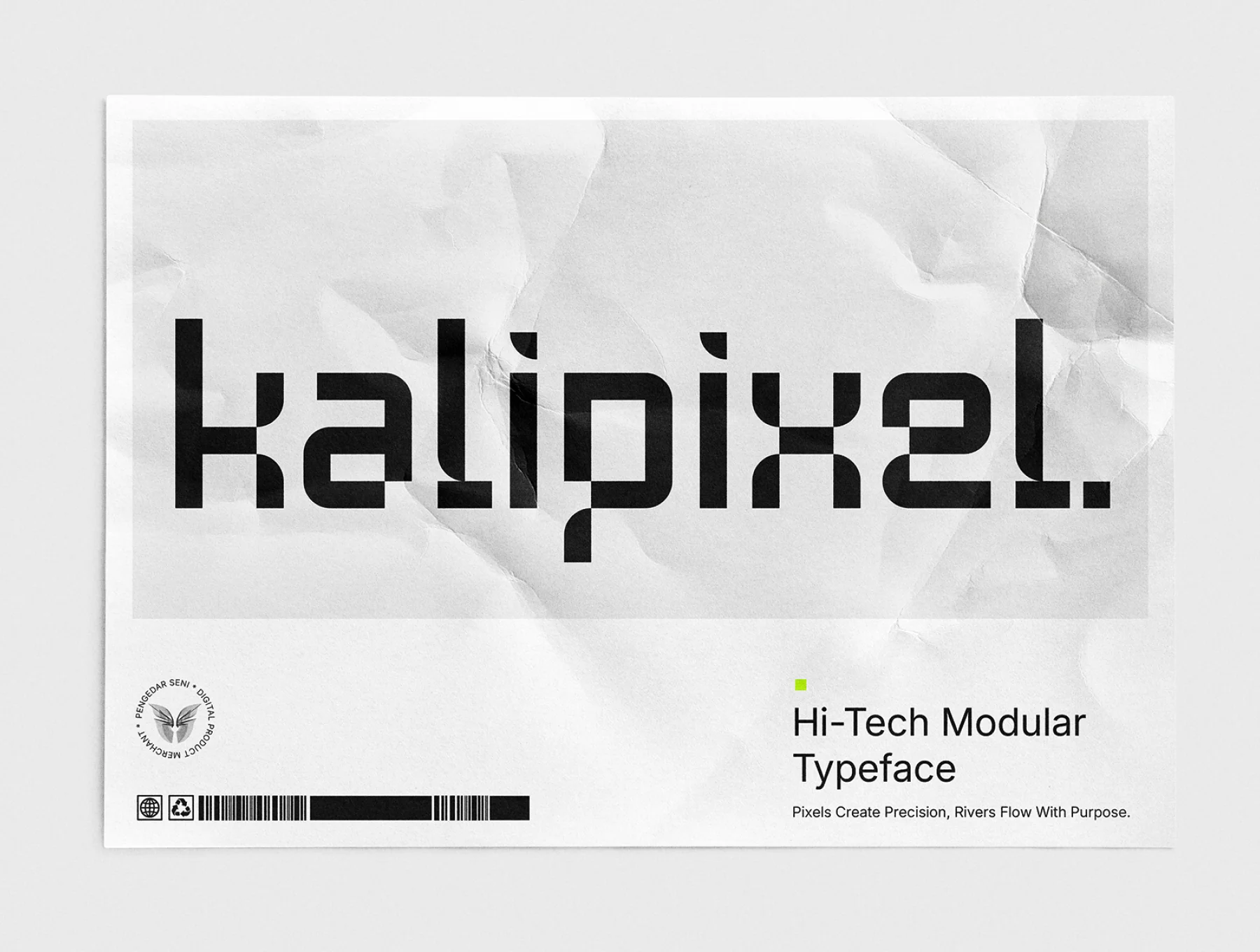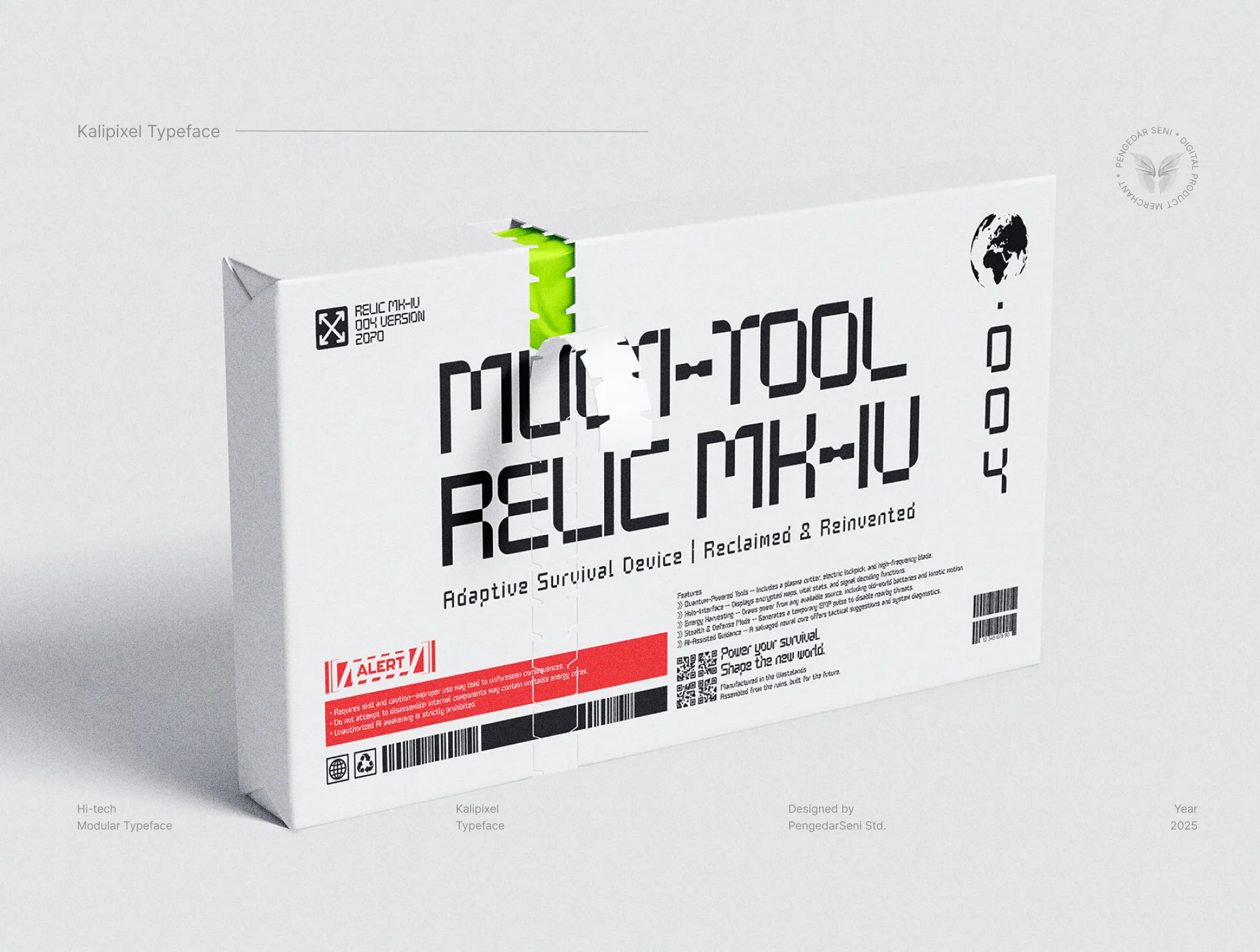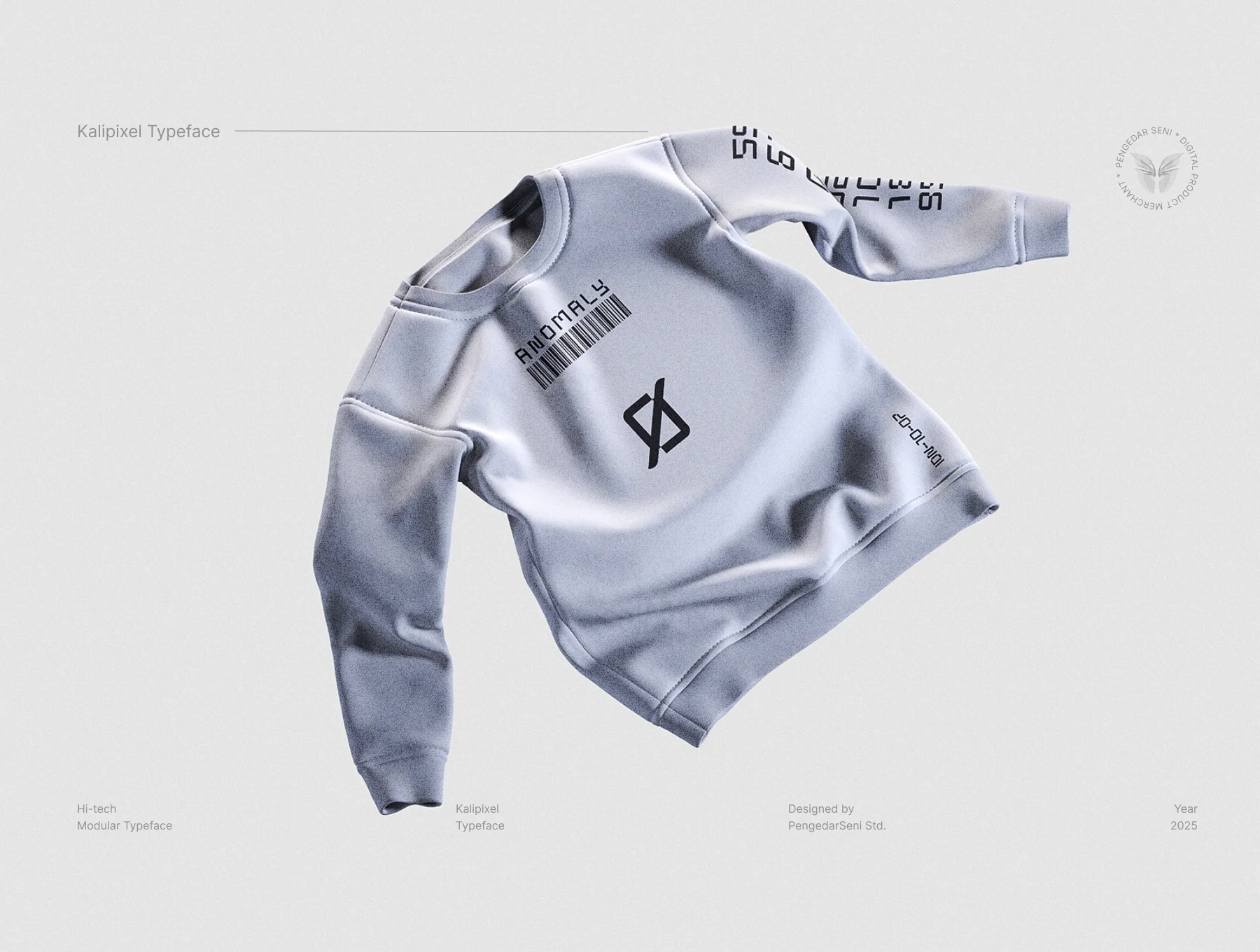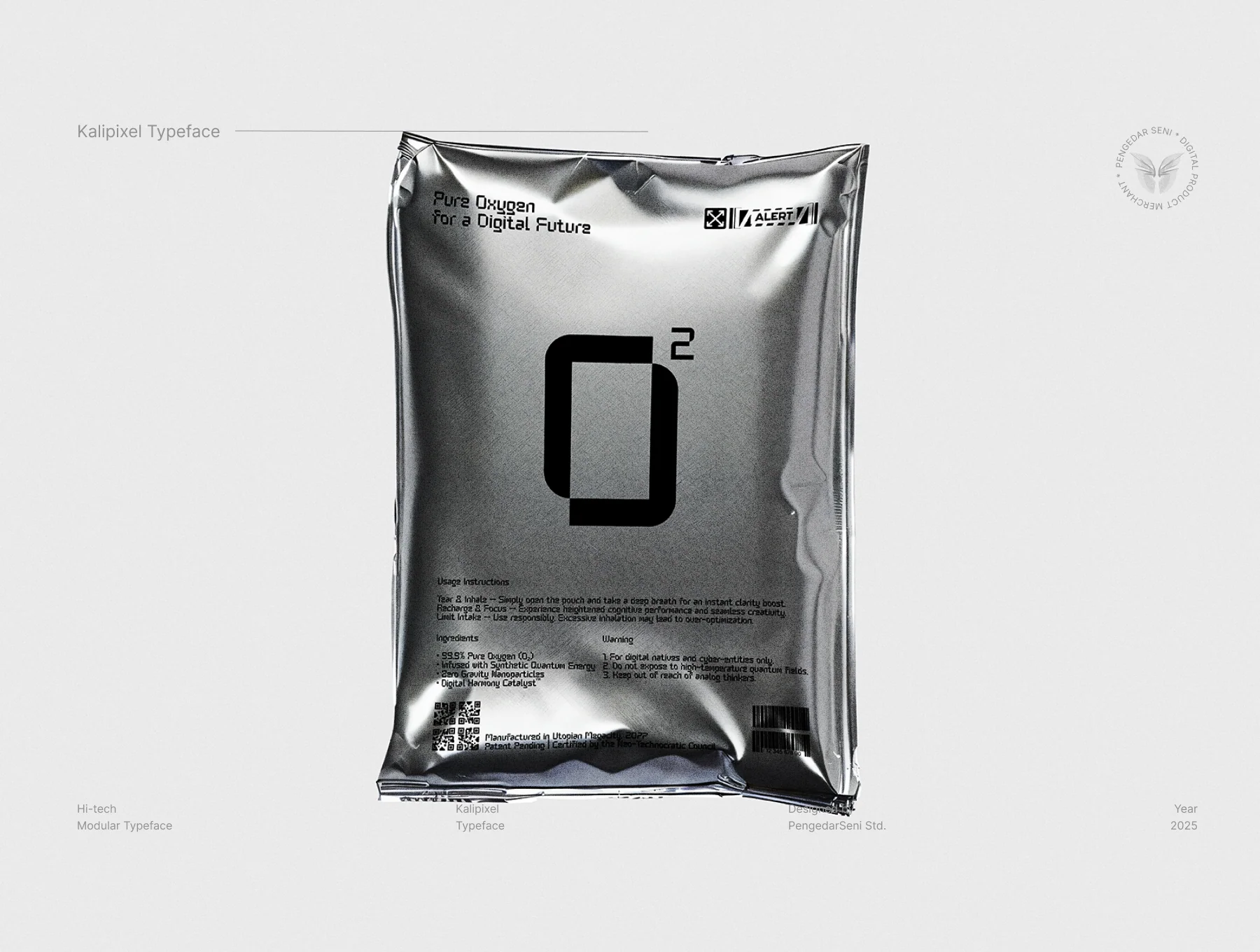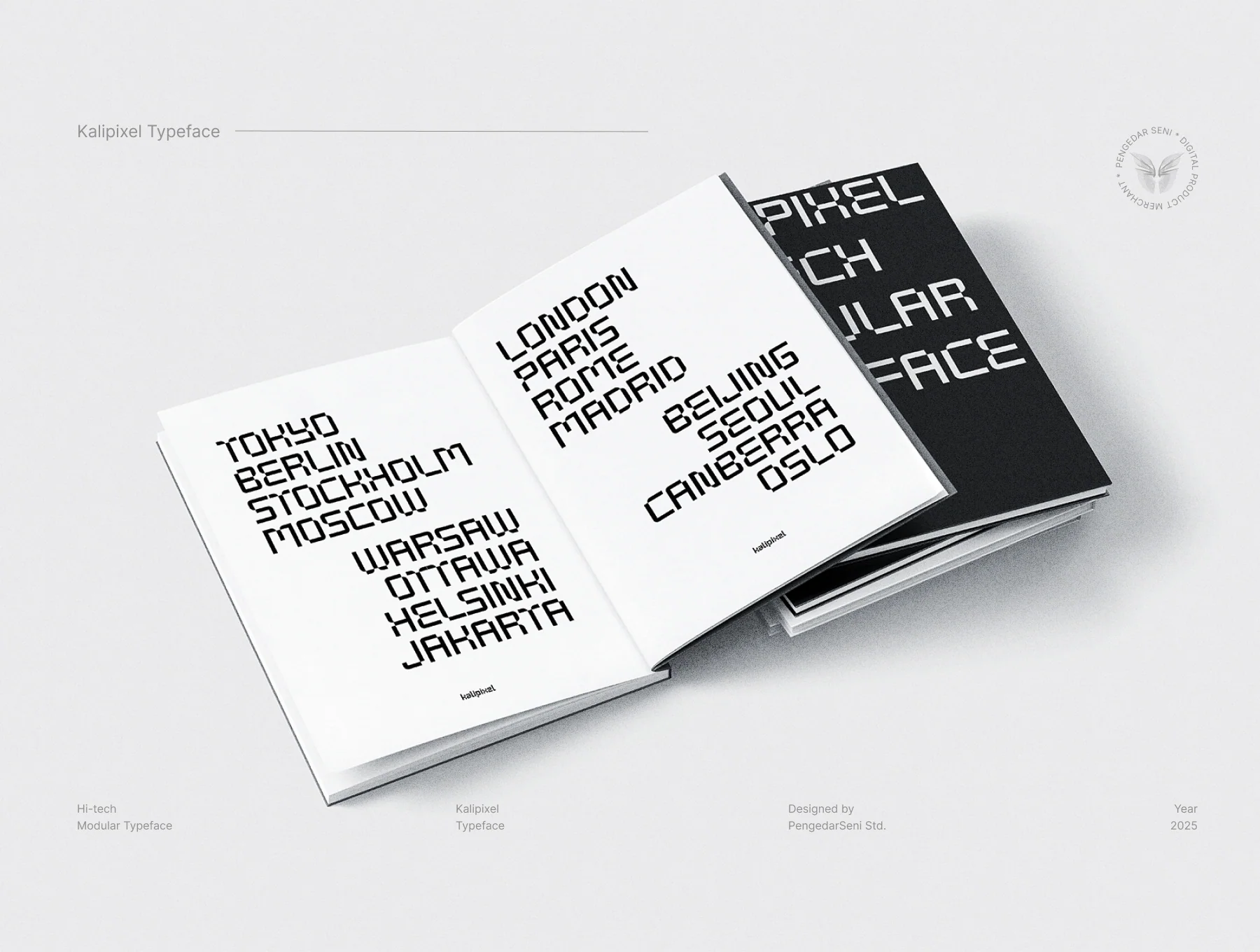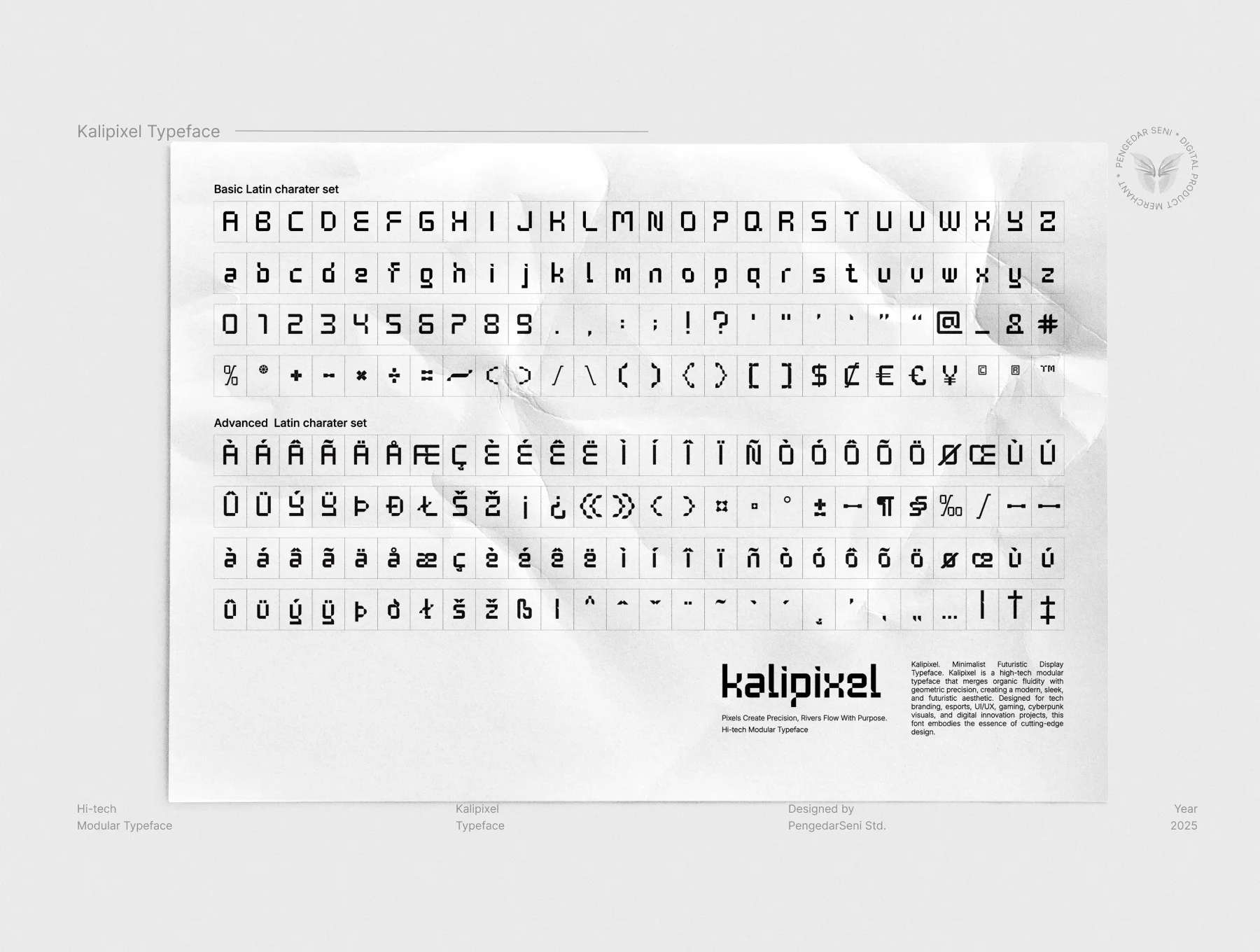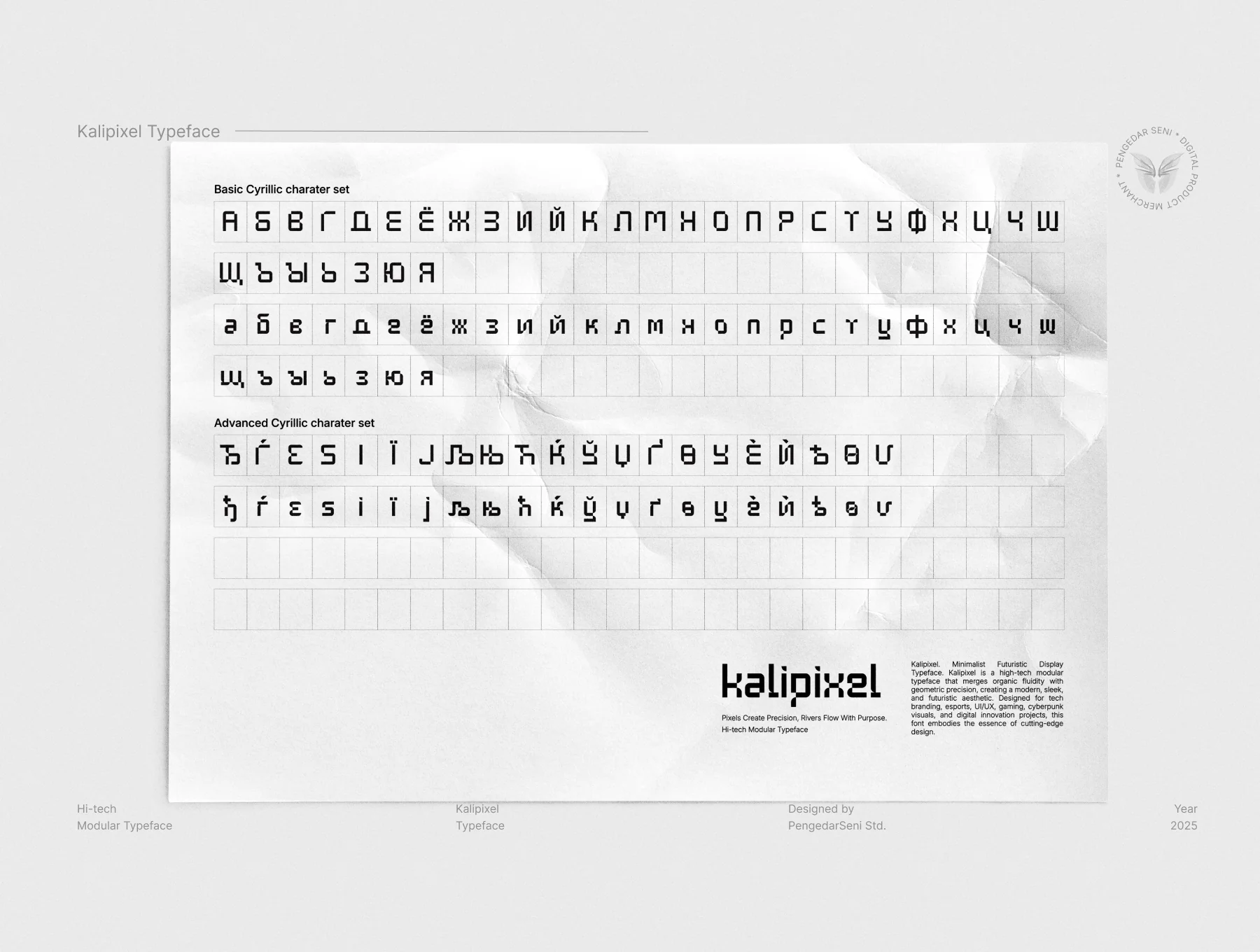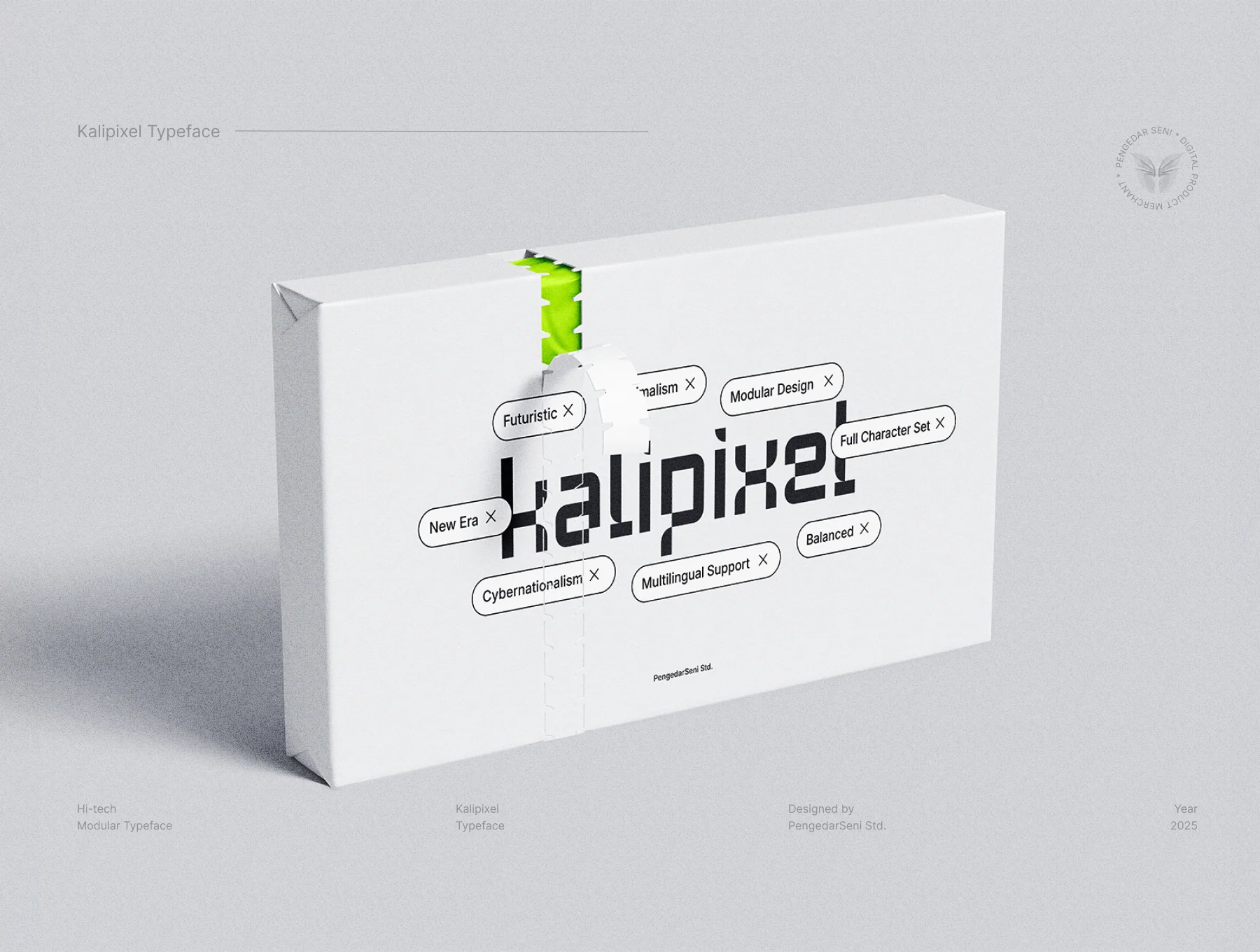
Kalipixel – Futuristic Typeface
Sleek Future-Inspired Display Font
Sans-serif font style
Kalipixel is a sleek modular display font where pixel precision meets fluid, river-like motion. Its rounded forms and geometric structure create a clean futuristic look for tech brands, esports, gaming, UI/UX, cyberpunk art, logos, posters, and digital products. Includes full characters, multilingual Latin/Cyrillic support, sharp legibility, and scalable versatility.